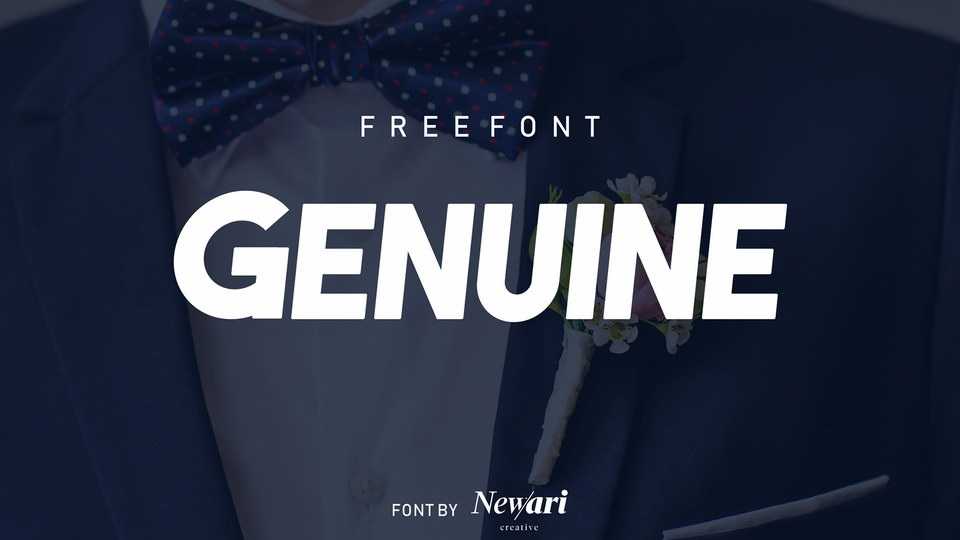
Download Genuine font, a bold, energetic yet elegant display font. Genuine font offers an attractive tool for lettering, logo, book covers or for posters and packaging.
Designer: Ari Riadi